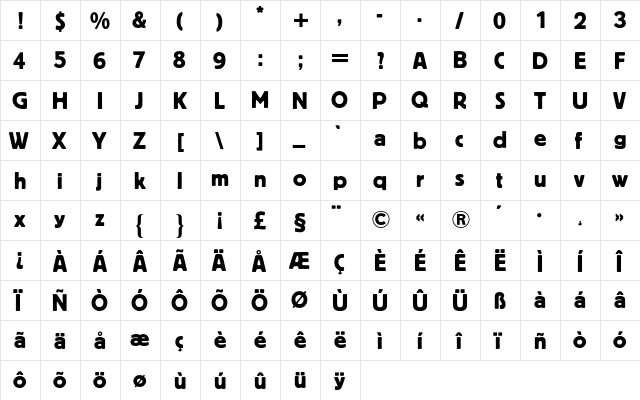
Block Berthold BQ Regular
Design Context for Block Berthold BQ Typeface
Block Berthold BQ takes a measured approach to typography — its balanced proportions and neutral character make it a reliable workhorse for both digital and print work.